Apparel graphic design relies heavily on strong, high-impact typography. When someone wears a hoodie, athletic tee, or gym cap, your text needs to command immediate attention from a distance. Thin, delicate fonts often get lost on heavy fabric textures. Therefore, choosing the best sport fonts for apparel is crucial for any modern streetwear or athletic clothing line.
Here is how to select sharp geometric fonts that print cleanly while giving your merchandise an energetic competitive edge.
1. Sharp Angles Express Speed, Power, and Structure
Athletic design relies heavily on geometry to convey physical movement. Look for typefaces featuring sharp chiseled corners, thick blocky weights, and forward-slanted italic angles. For instance, heavy geometric sport weights naturally convey forward momentum and physical strength. Consequently, your gym logo or team crest feels powerful and focused.
Furthermore, structured athletic letterforms create a solid visual anchor on clothing graphics. Whether placed across the chest of a varsity jacket or running down a sleeve, bold sport typography ensures your brand identity remains dominant and recognizable.
2. High Legibility for Physical Fabric Printing
Thin hairline strokes often bleed or disappear completely when printed or embroidered onto textured cotton and heavy fleece. Heavy athletic fonts carry the solid visual weight required to pop off fabric surfaces effortlessly.
Moreover, their thick stroke profiles prevent detail loss during high-volume production runs, such as screen printing or vinyl heat transfers. Choosing bold vector typography saves manufacturing costs by eliminating blurry prints and ruined garment batches.
3. Keep Supporting Graphic Details Minimalist
Because athletic headlines command heavy visual attention, keeping your secondary text clean and uncluttered is vital. Overcrowding your apparel layout with multiple complex fonts creates visual confusion that ruins the impact of your main design.
For example, pair your heavy sport font headline with a simple condensed Sans Serif for minor details like website URLs, coordinate numbers, or garment specifications. Consequently, your visual layout stays organized, modern, and easy to scan.
Recommended Fonts from Artisan Font
- Trainex: A heavy geometric sport font featuring chiseled blocky structures engineered specifically for gym merch and varsity apparel.
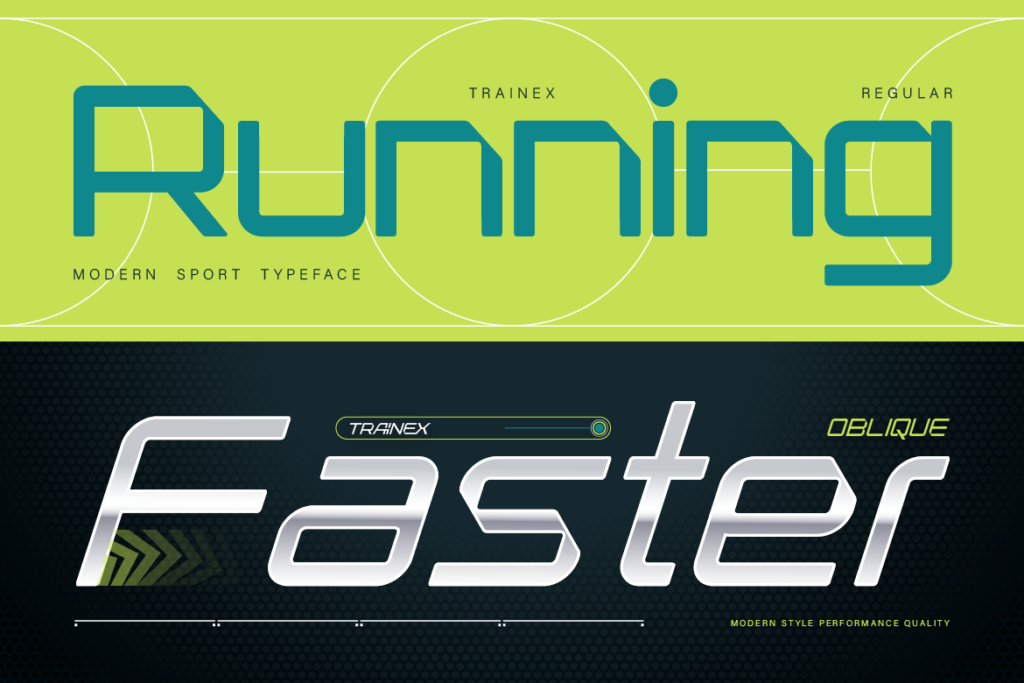
- Rushmax: A modern line sport font designed with dynamic racing lines for motorsports apparel and car decals.
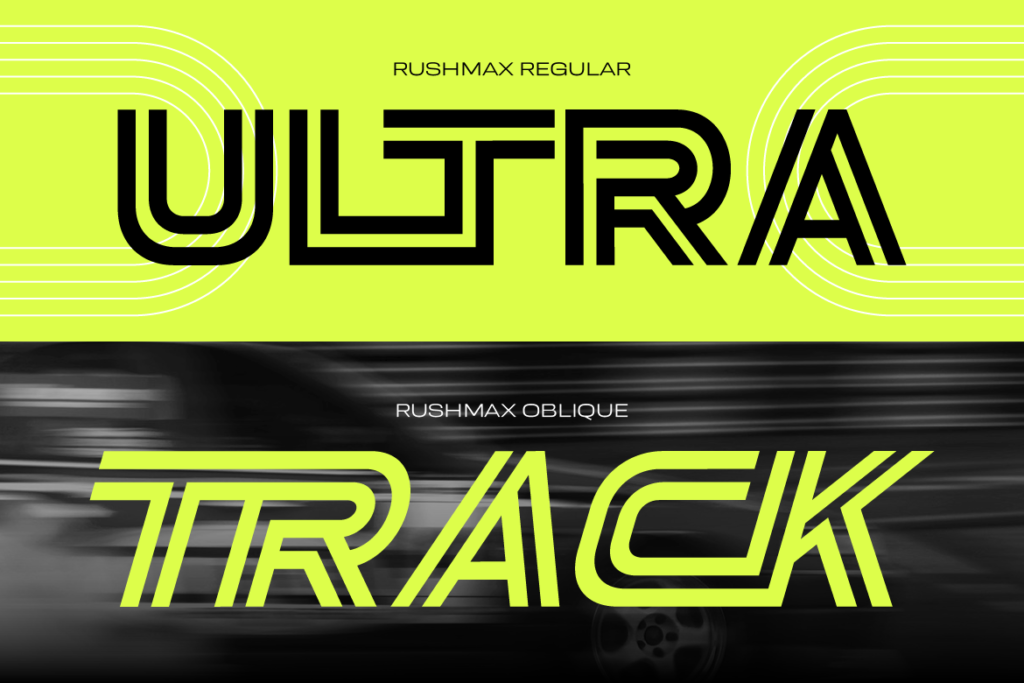
- Trivox: A sharp, futuristic sport font built for high-octane esports team logos and activewear graphics.